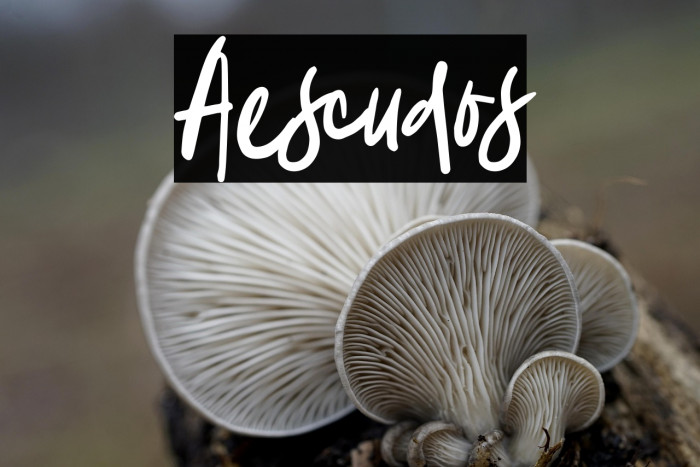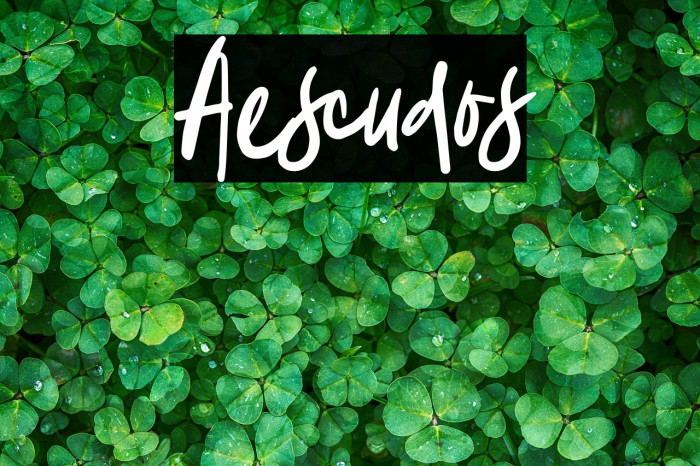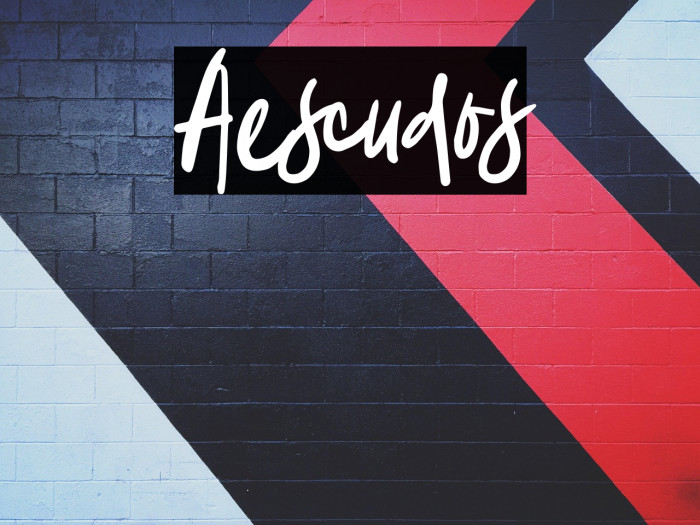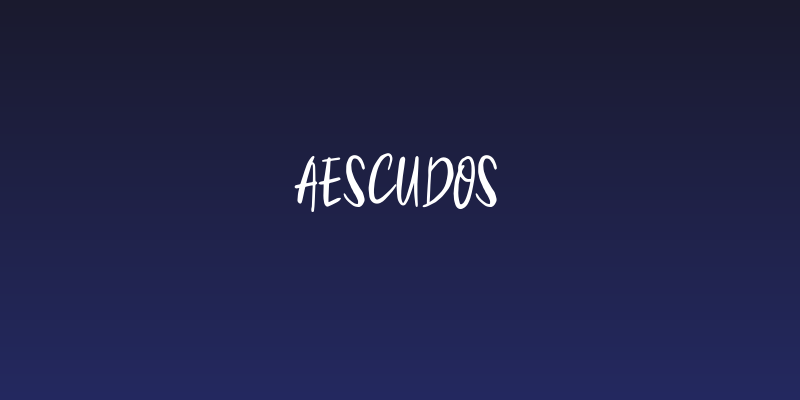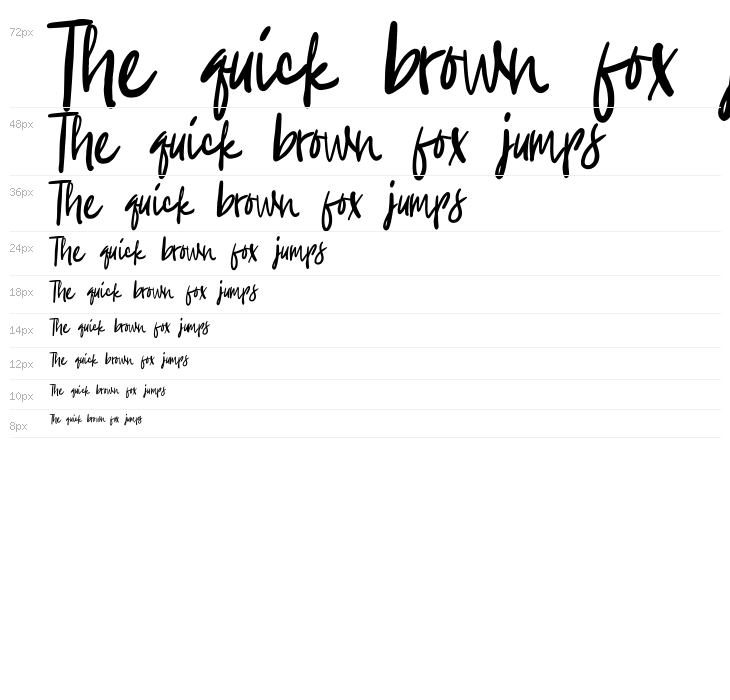
Aescudos Font
Aescudos Description
This font features a dynamic and expressive handwritten style with a playful and artistic flair. The letters are characterized by their irregular strokes and varying thickness, giving them a lively and spontaneous appearance. The uppercase and lowercase letters maintain a consistent style, with a slight slant that adds to the casual and informal feel. The font's overall look is bold and eye-catching, making it suitable for creative and artistic projects. The characters are well-spaced, allowing for readability while maintaining the font's unique personality.
| Proposed Projects | Ideal for greeting cards, posters, branding projects, and social media graphics. |